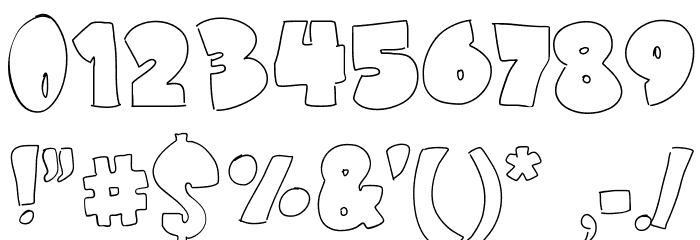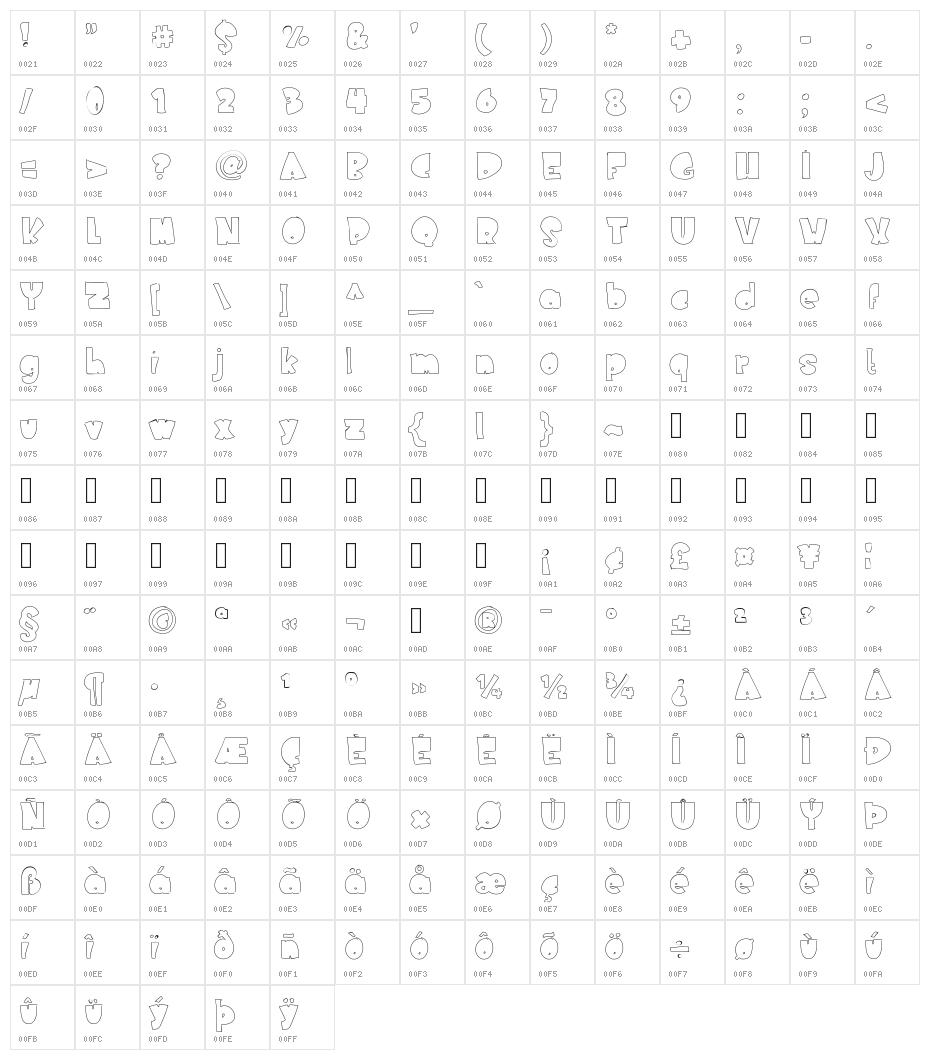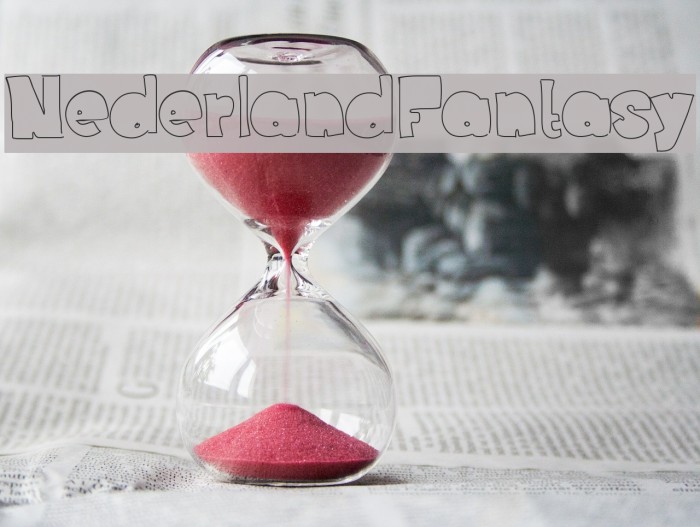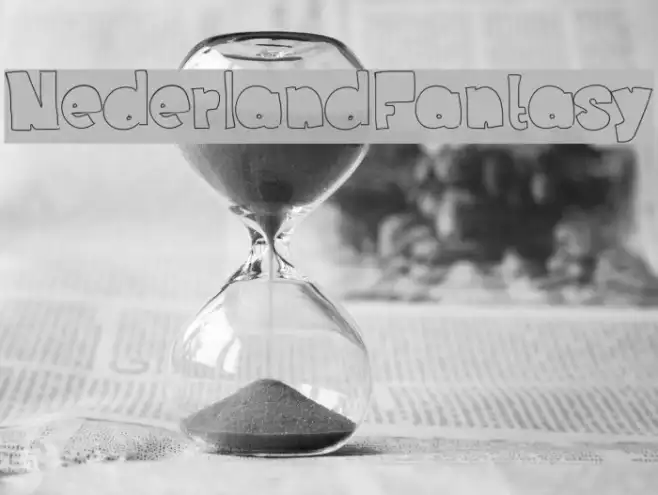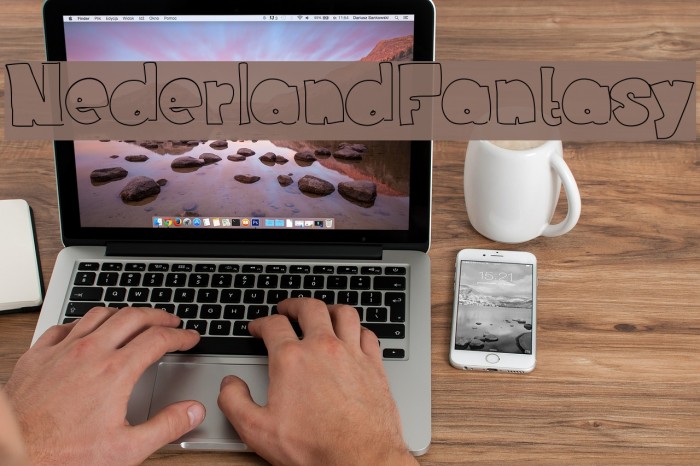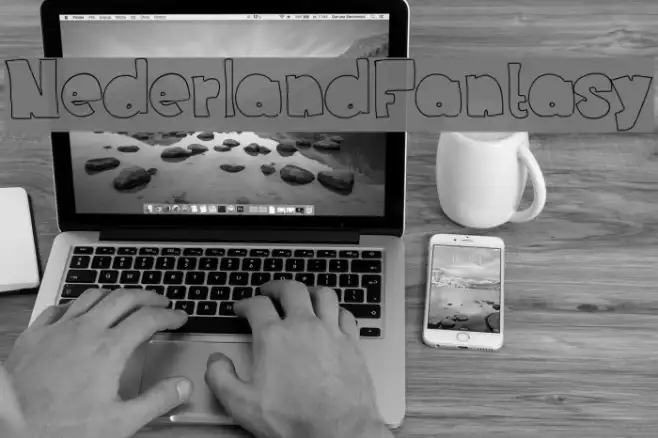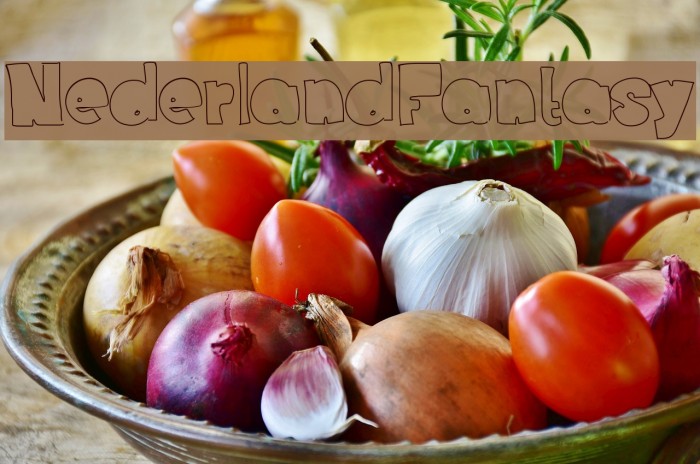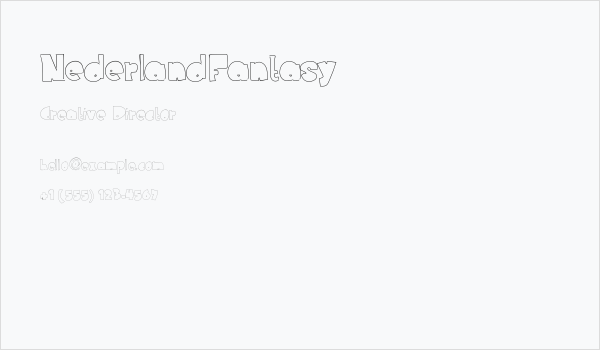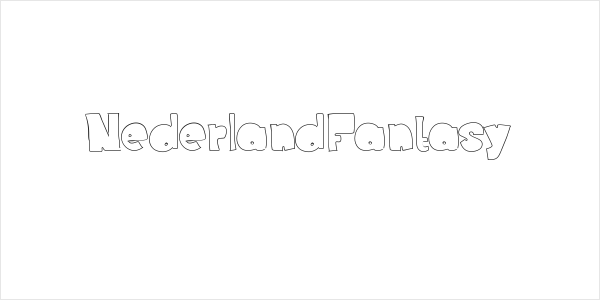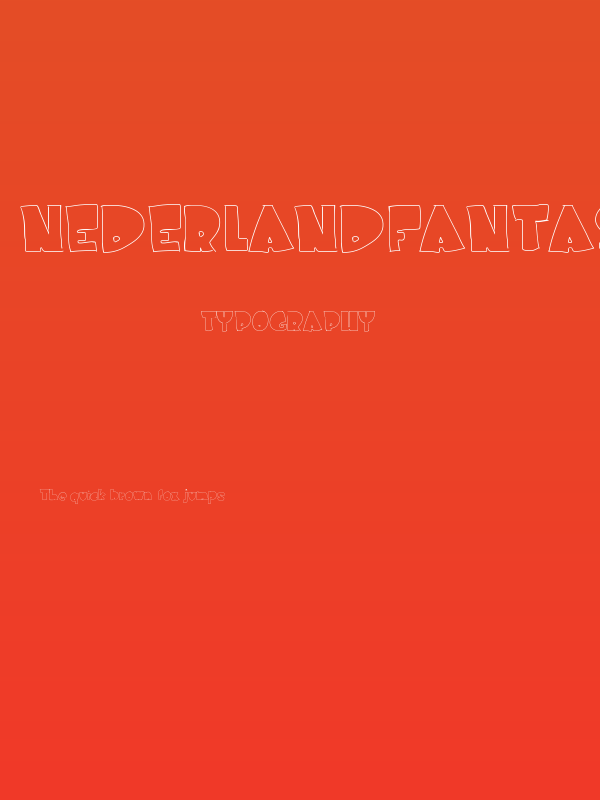
NederlandFantasy Font
NederlandFantasy Description
This playful and whimsical font features bold, rounded characters with a cartoon-like appearance. Each letter is uniquely styled with varying widths and exaggerated curves, giving it a fun and informal look. The uppercase and lowercase letters maintain a consistent style, with some characters having distinctive features such as dots or slanted lines. The numbers and special characters follow the same playful design, making the font suitable for creative and lighthearted projects. Its bold and eye-catching nature makes it ideal for capturing attention and conveying a sense of fun.
| Proposed Projects | Ideal for children's books, comic strips, playful branding, and party invitations. |